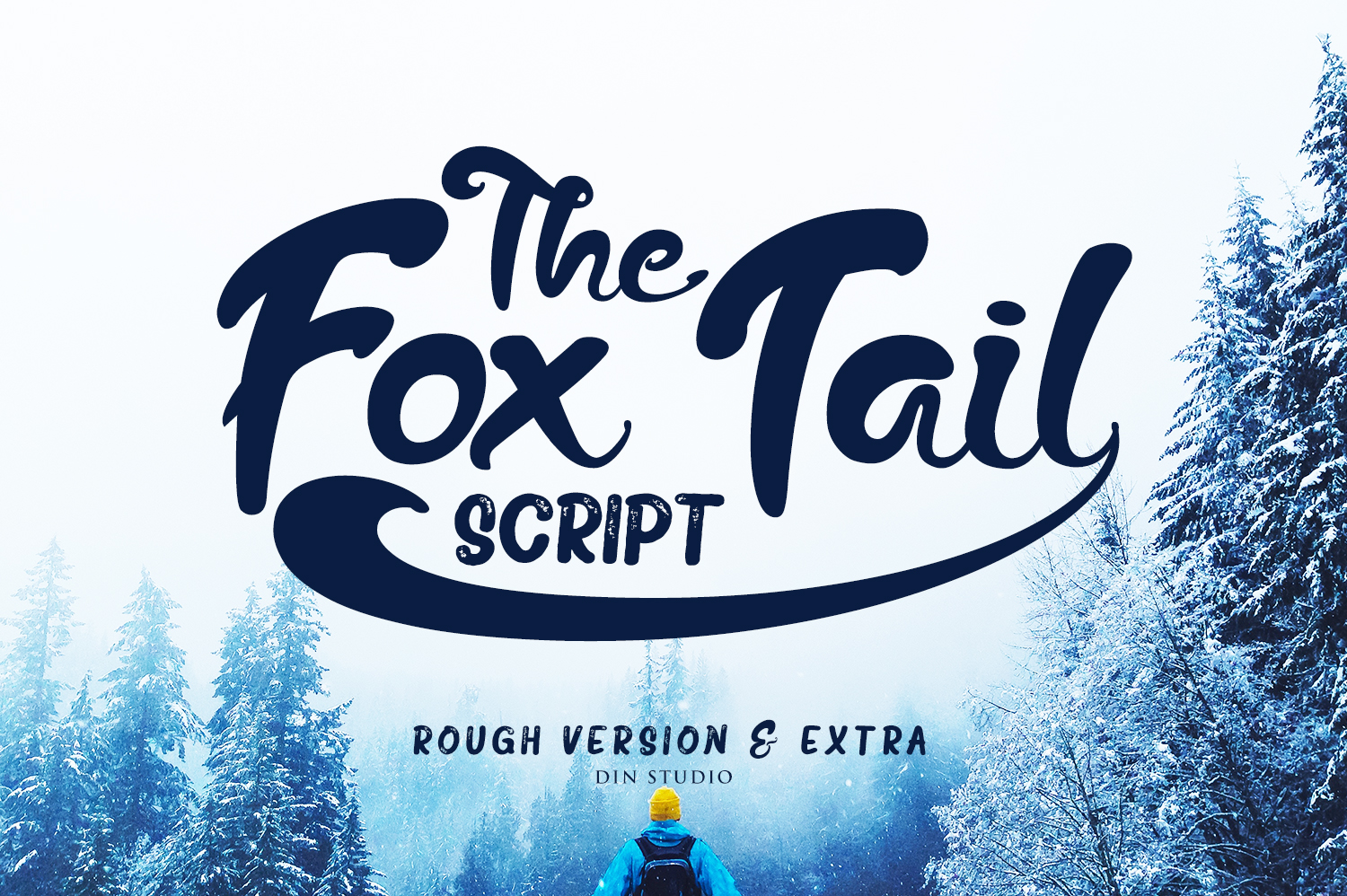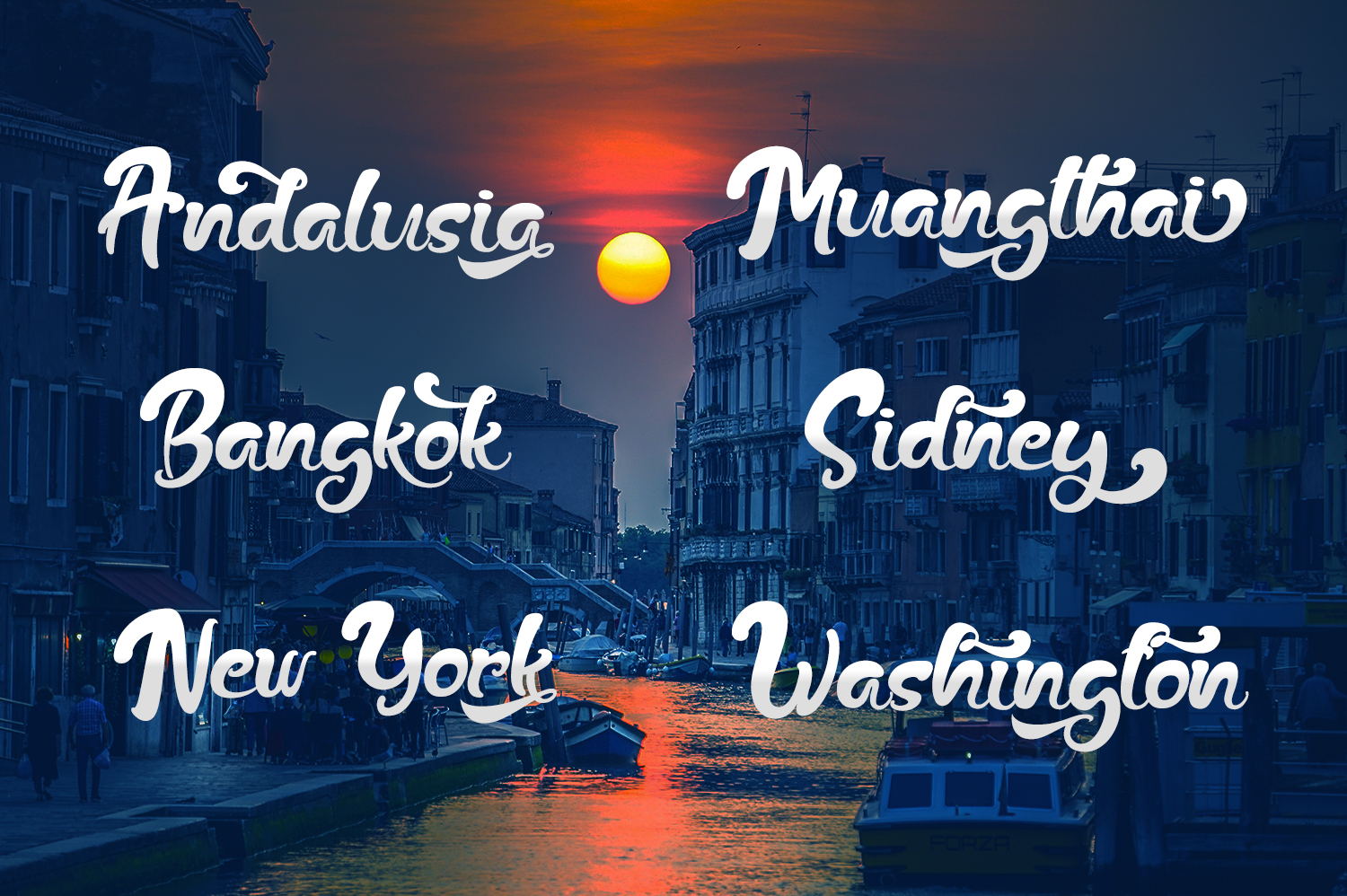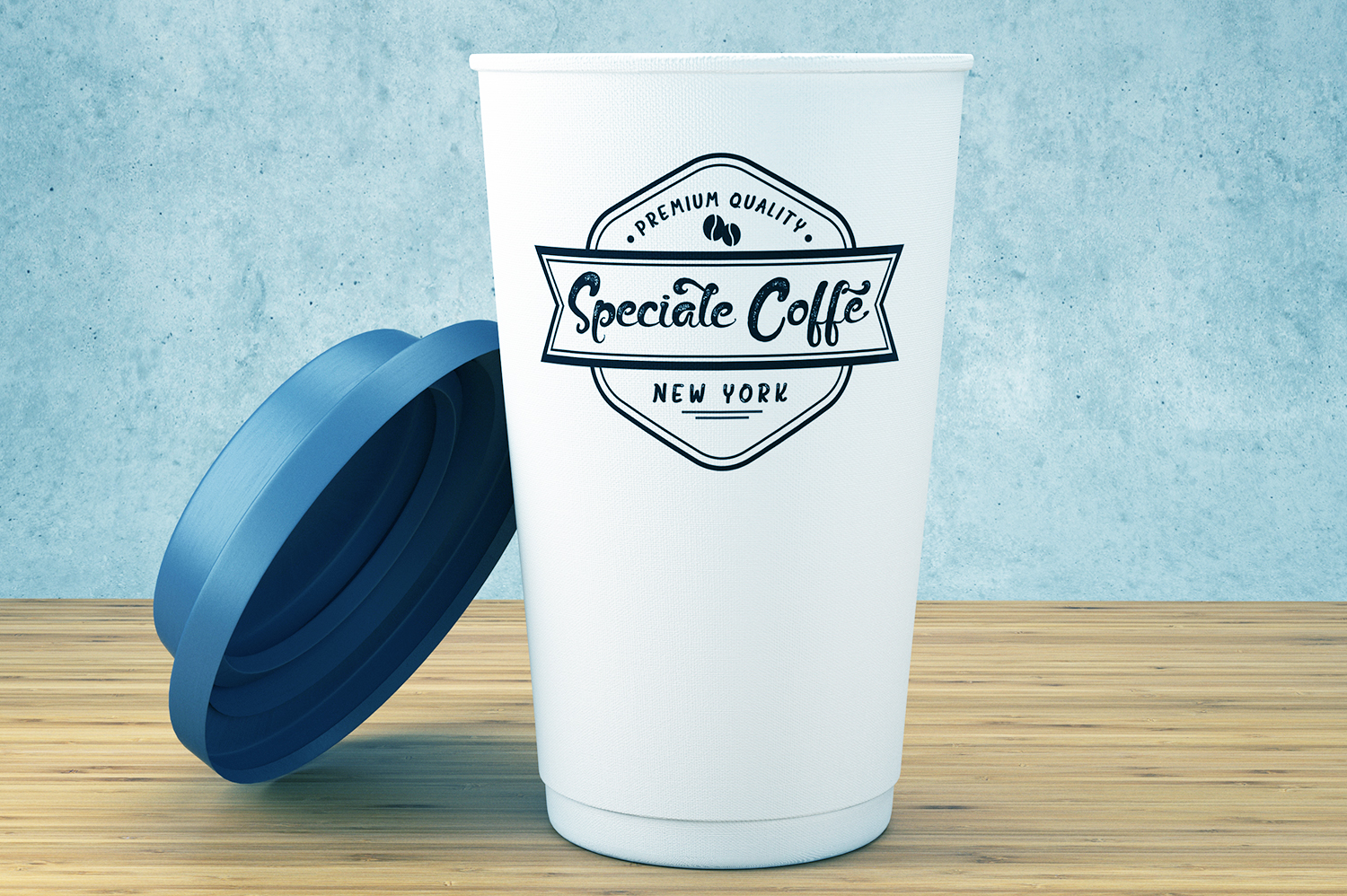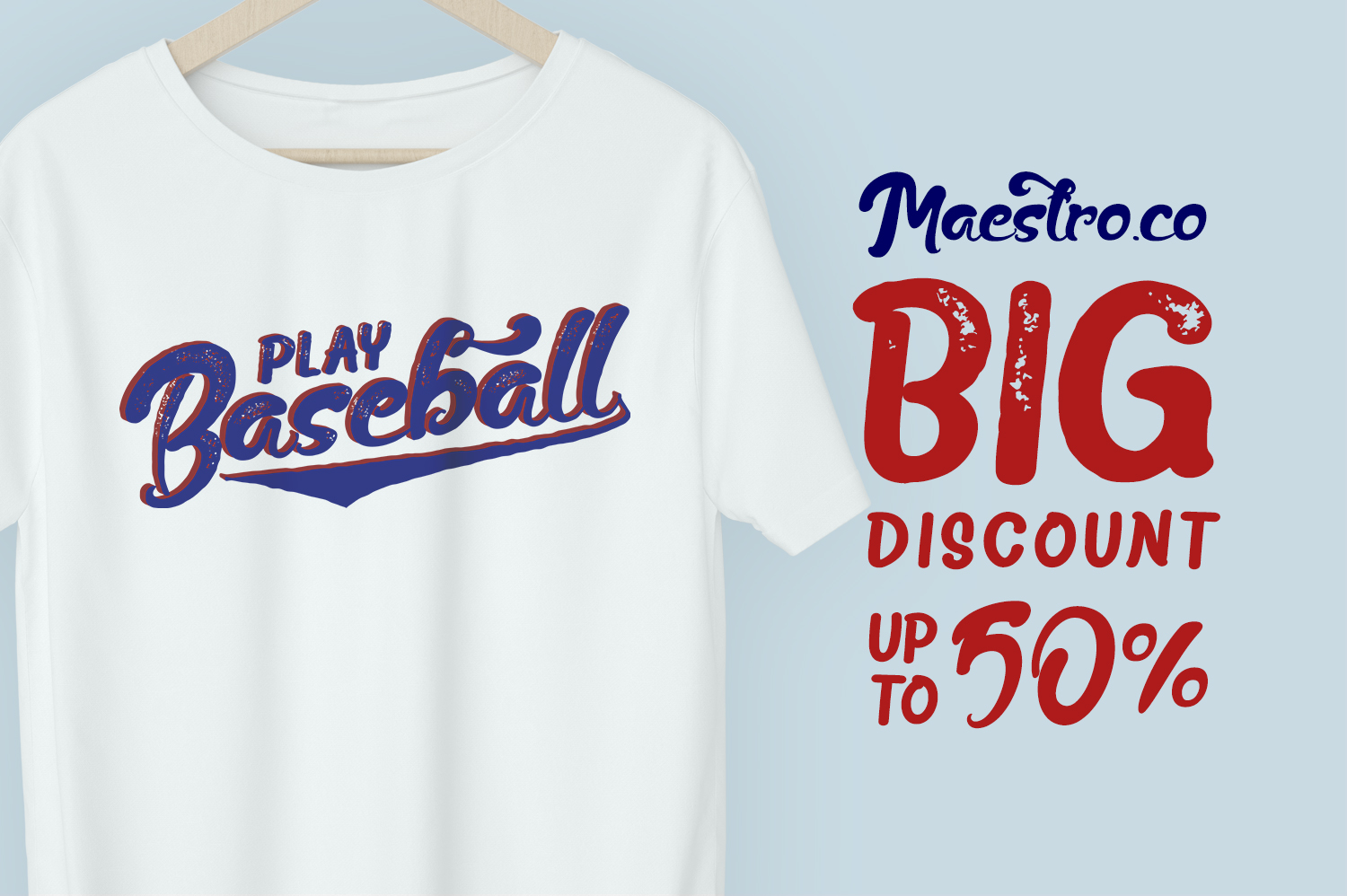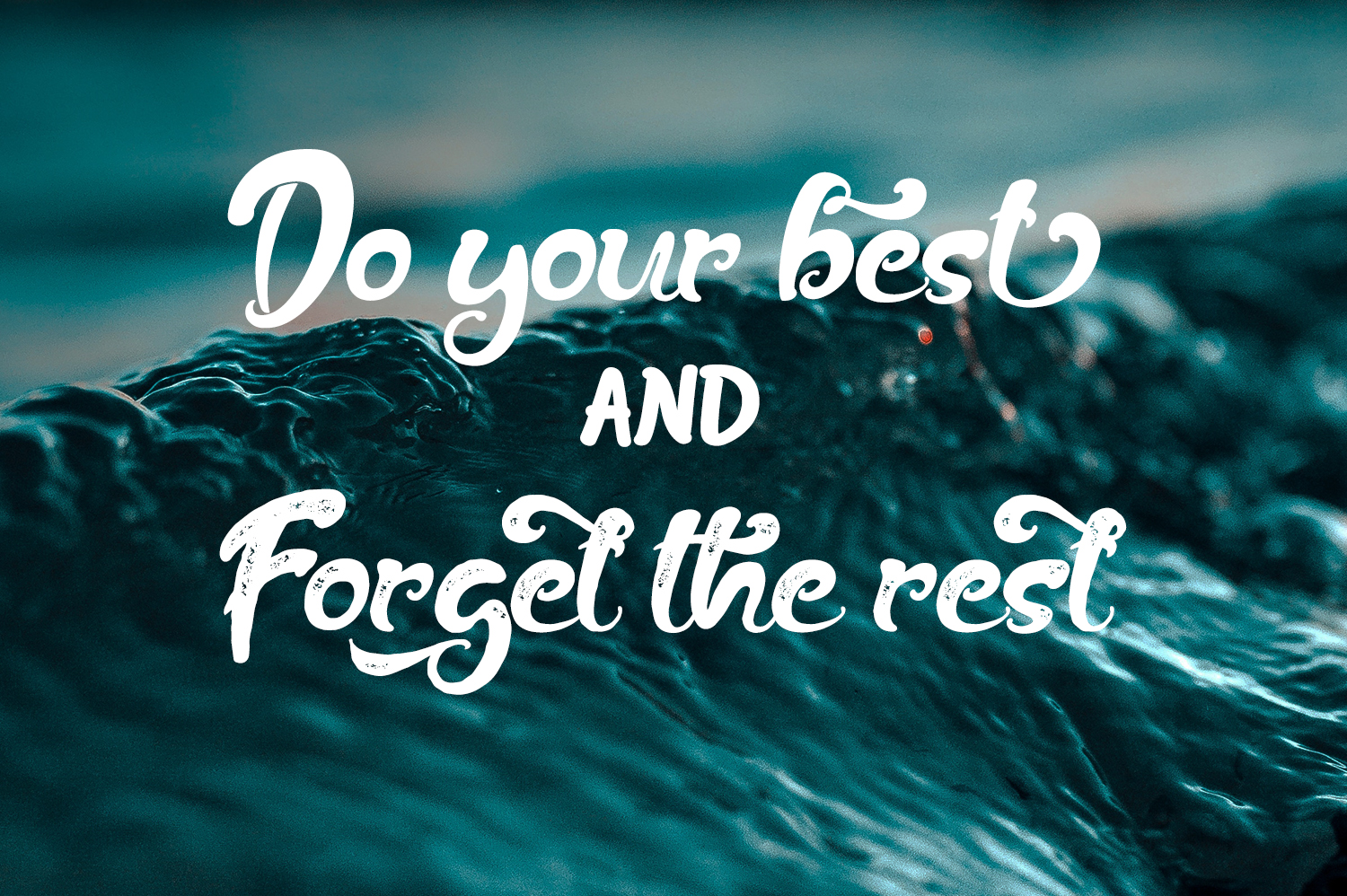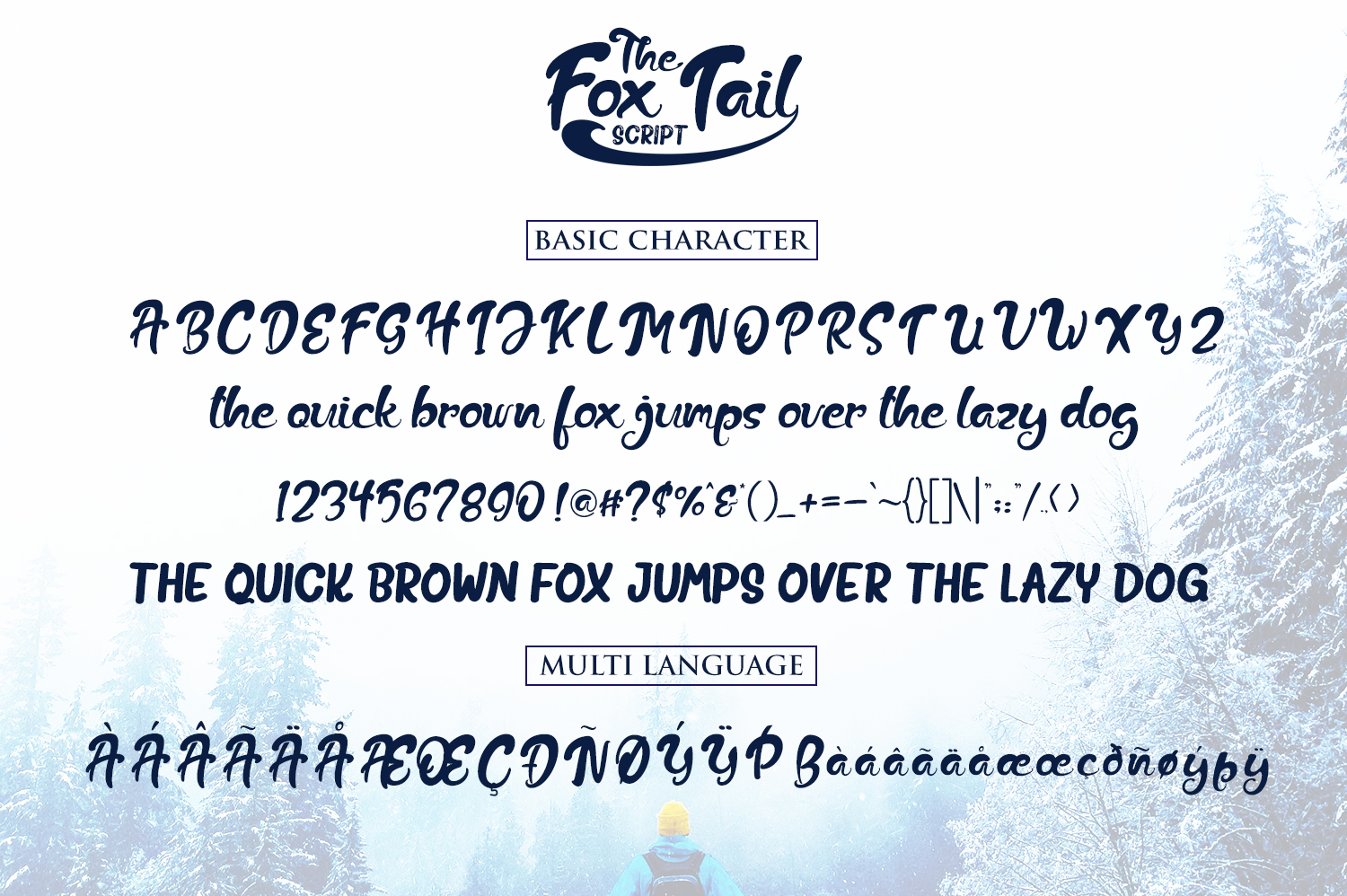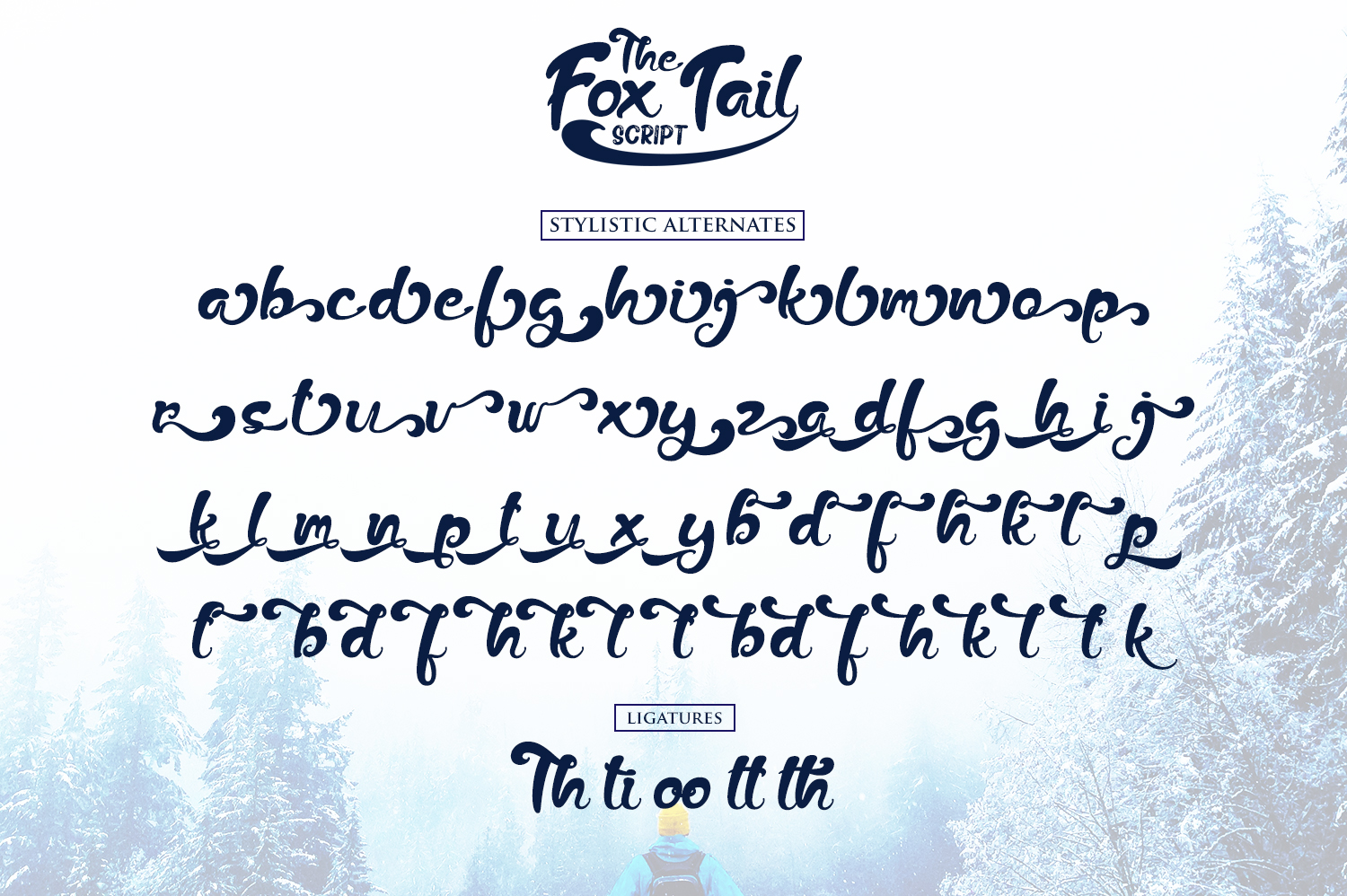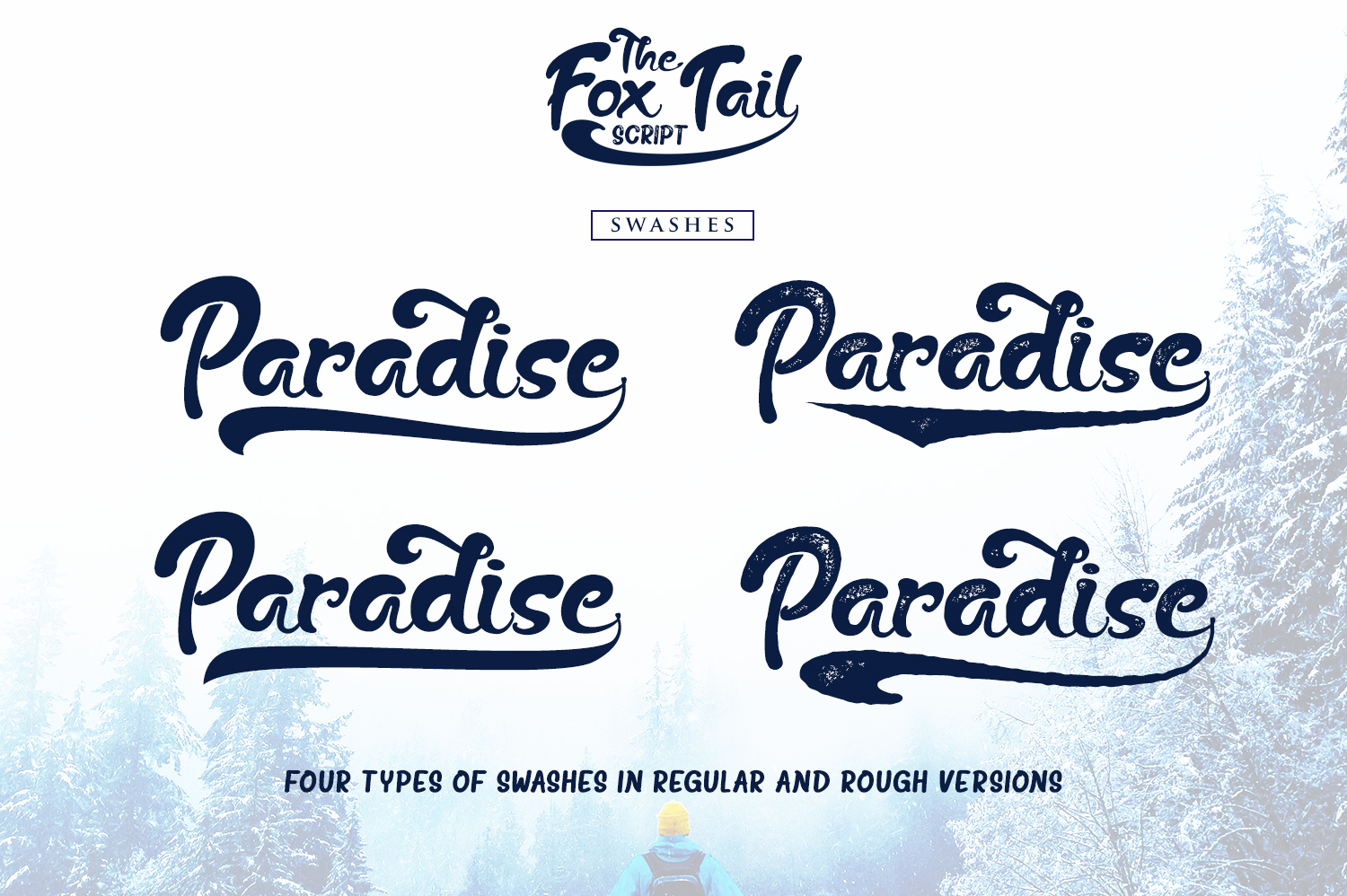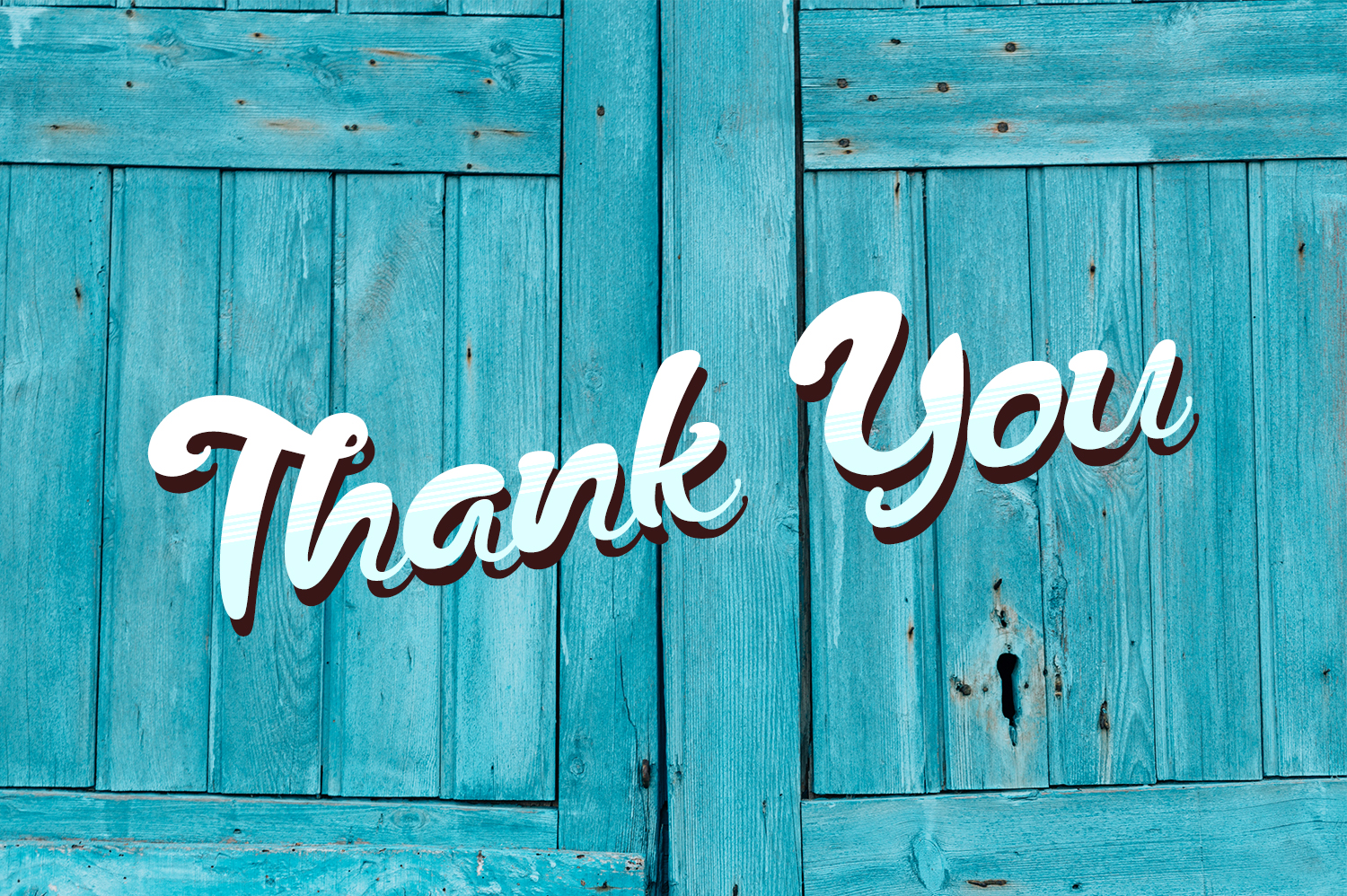
The Fox Tail Family (4 fonts)
I want to introduce The Fox Tail - Font Duo&Extras. The Fox Tail - Font Duo & Extras is a font that is inspired by the retro style and fox's tail. This font has a unique and interesting shape. This Family font consists of :
This font is great for logo, branding projects, product packaging, quotes, greeting cards and all your other lovely projects. The Fox Tail - Font Duo&Extras comes with retro and unique styles. It contains a full set of lower & uppercase letters, a large range of punctuation, numerals, multilingual support and many cute alternates. Features : - Stylistic Alternates, Character Set A-Z - Numerals & Punctuations (OpenType Standard) Accents (Multilingual characters) - PUA Encoded With retro and unique design.